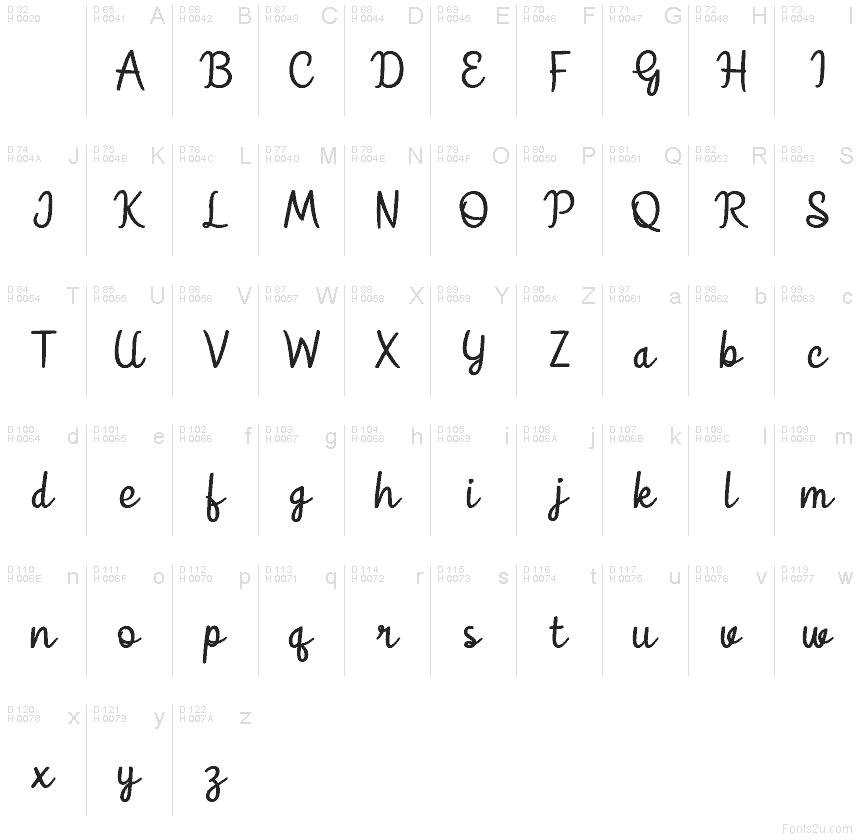
CS Greylin Regular Demo
CS Greylin font by Craft Supply Co. is a free handwritten script font. Built for those moments when you want warmth without wobble, it delivers smooth, inky strokes with a gentle slant and a lightly bouncy rhythm. The rounded terminals and open counters keep it airy and readable, while consistent monoline pressure gives it tidy polish—friendly, not fussy.
Using CS Greylin, headlines snap into focus without losing that human touch. It shines on product packaging, boutique branding, quote graphics, invitations, social posts, and cozy café menus. Generous spacing helps at medium sizes, and this free font pairs beautifully with a clean geometric sans to anchor longer copy—set the sans a notch smaller to let Greylin’s script do the greeting.